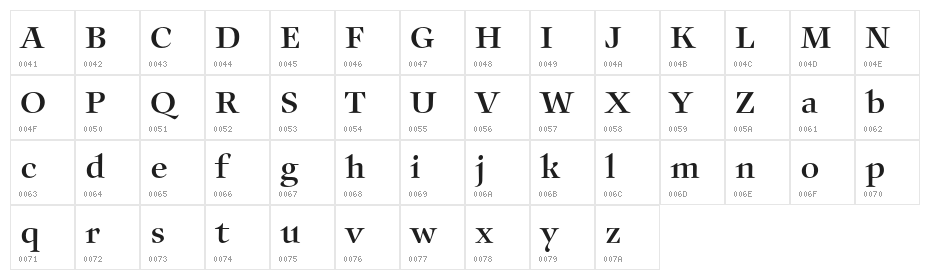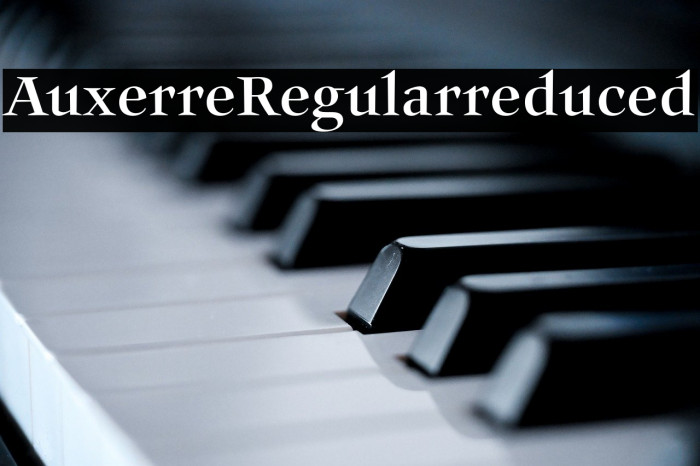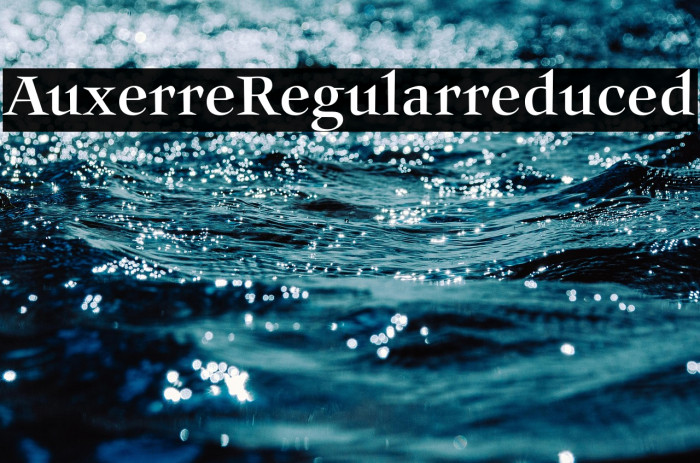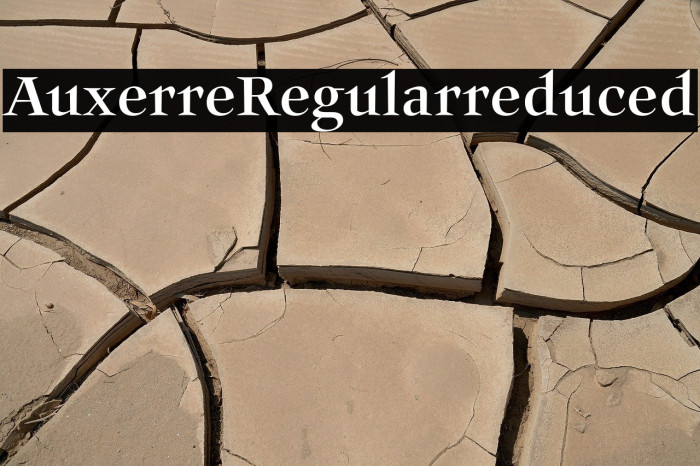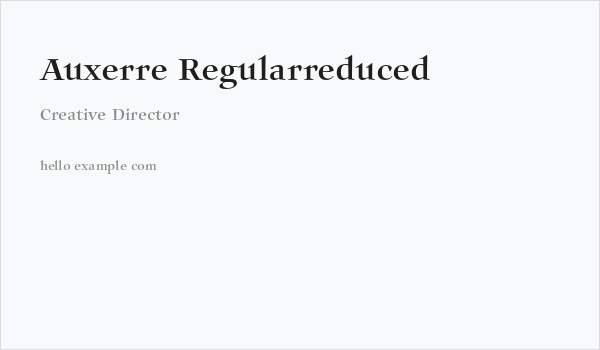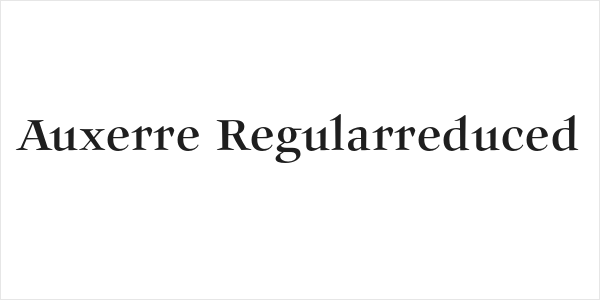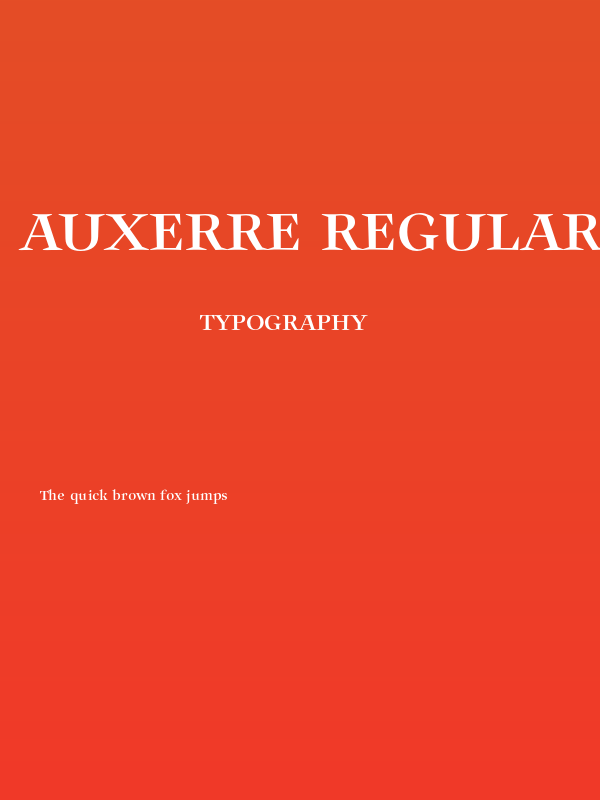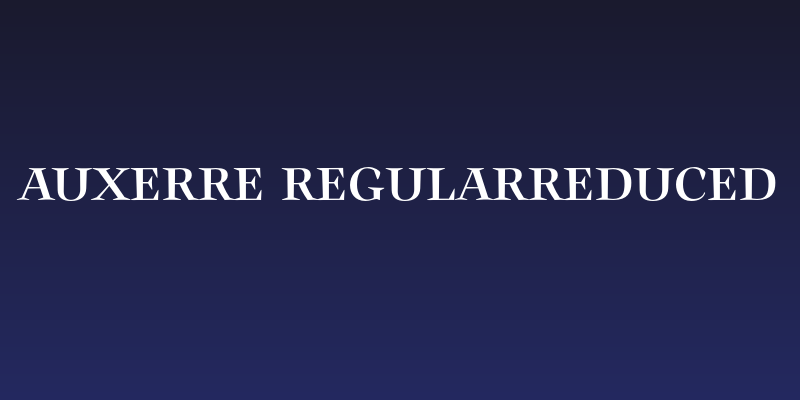
Auxerre-Regularreduced Font
Auxerre-Regularreduced Description
This font features a classic serif style with elegant and sharp serifs that give it a sophisticated and traditional appearance. The uppercase letters are bold and commanding, while the lowercase letters maintain a consistent and harmonious flow. The overall design is balanced, with a moderate contrast between thick and thin strokes, enhancing readability and visual appeal. The character spacing is normal, allowing for clear legibility in both large and small text sizes. This font's timeless design makes it suitable for a variety of applications, from formal documents to branding and editorial design.